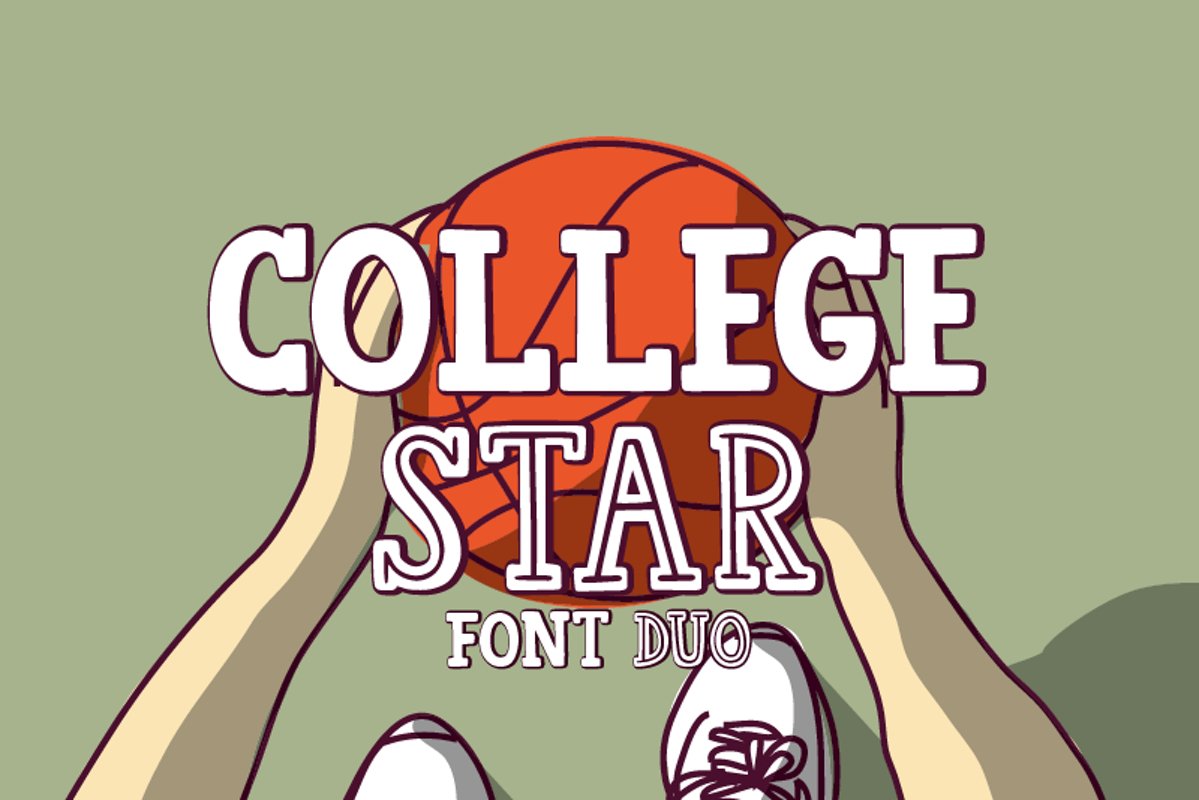
College Star Font Duo | LoveSVG
College Star Full LoveSVG
College Star Line LoveSVG
College Star Font Duo, made exclusively by LoveSVG.com, is a cut friendly font compatible with Cricut, Silhouette, SCAL and Scan N Cut. Its thickness makes it an ideal font for making cut files.
• Uppercase & numbers
• Special characters & punctuation